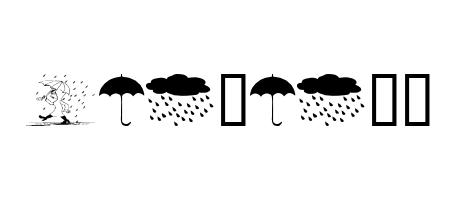
Whethers
By GemFonts / Typotheticals
Whethers is a whimsical, hand-drawn font. It playfully depicts weather elements: a person running in the rain, an umbrella, rain clouds with raindrops, and blank squares, possibly representing windows. The style evokes a childlike charm and simplicity. The inconsistent sizing and spacing add to its playful, slightly chaotic nature.